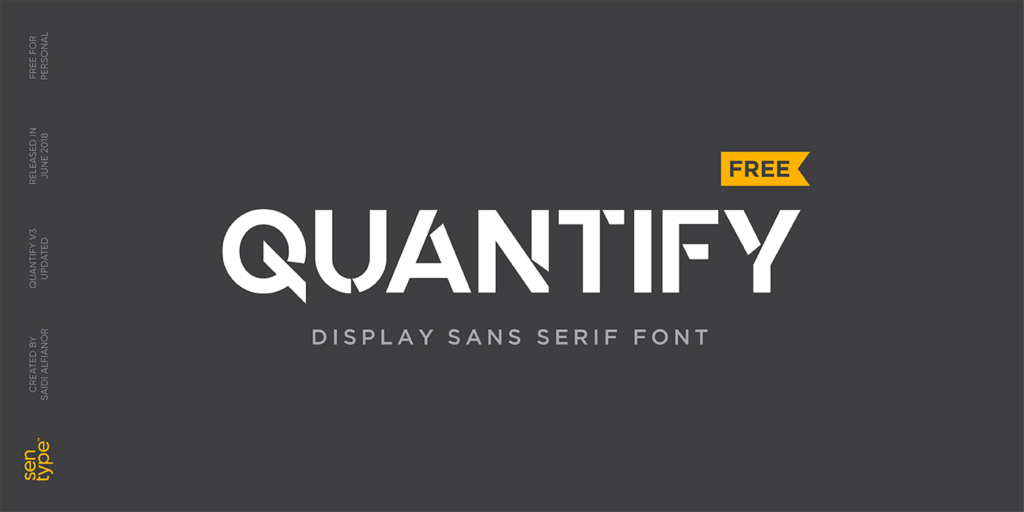
Quantify is display sans serif font with modern and geometric style typeface. Quantify is part of our experiment to find unique and strong typeface that made for display such as logo or headline.
Quantify Free Font